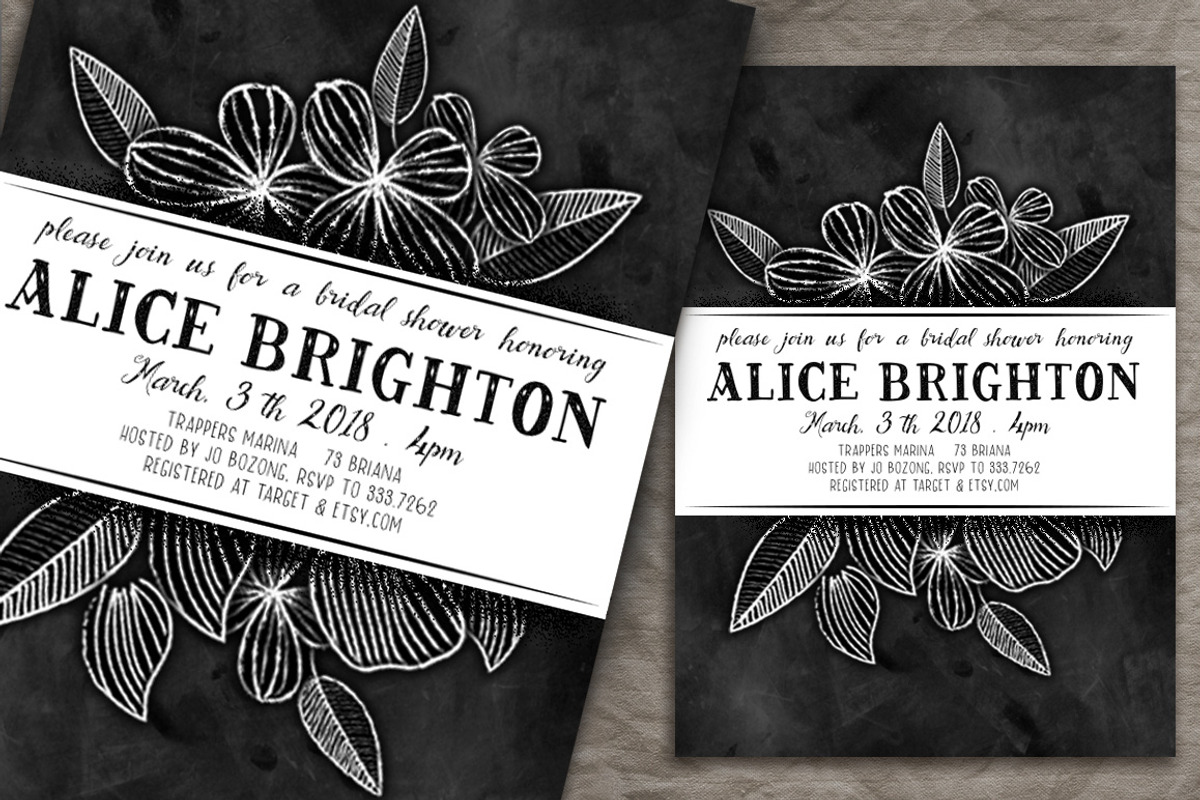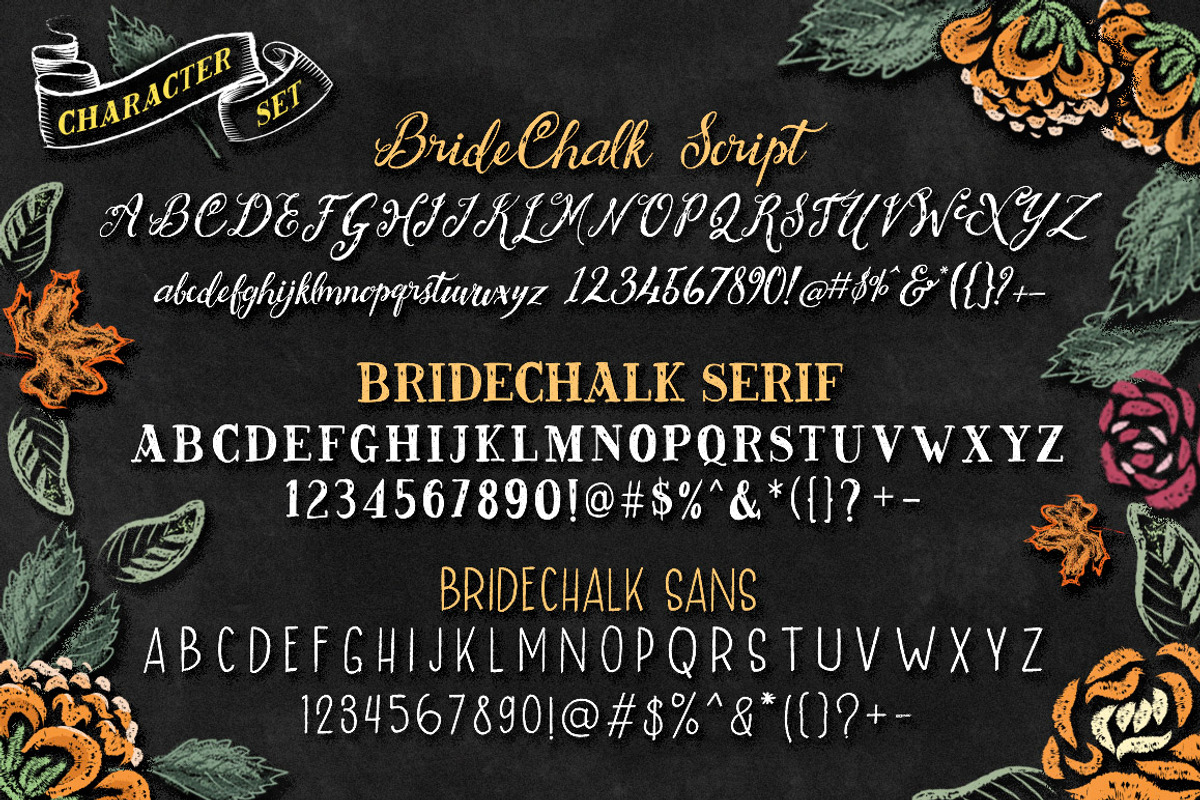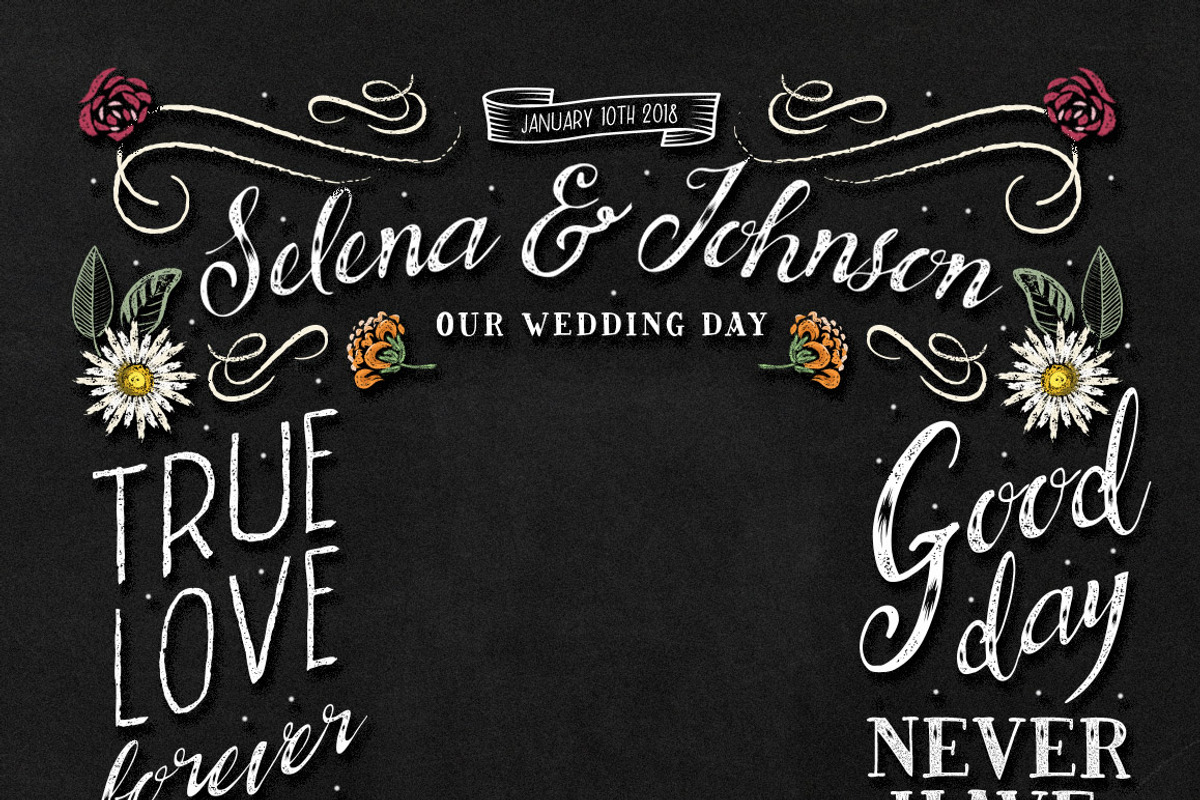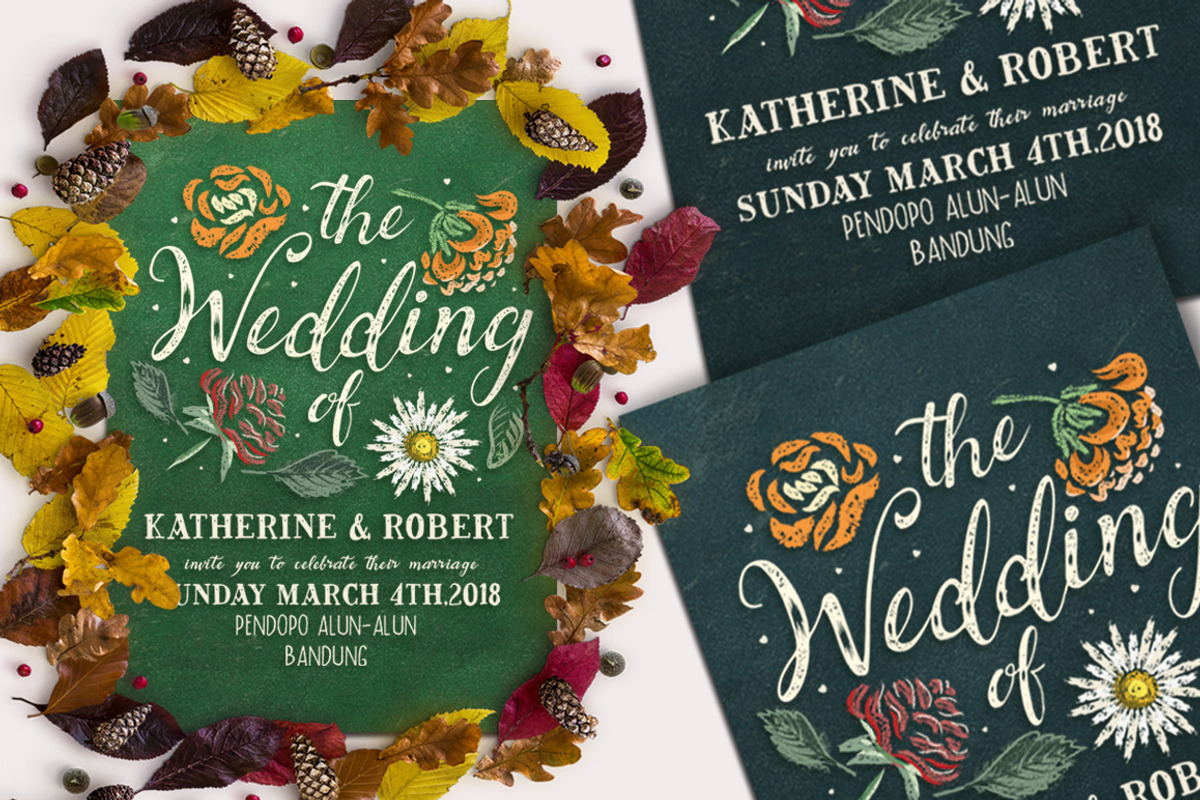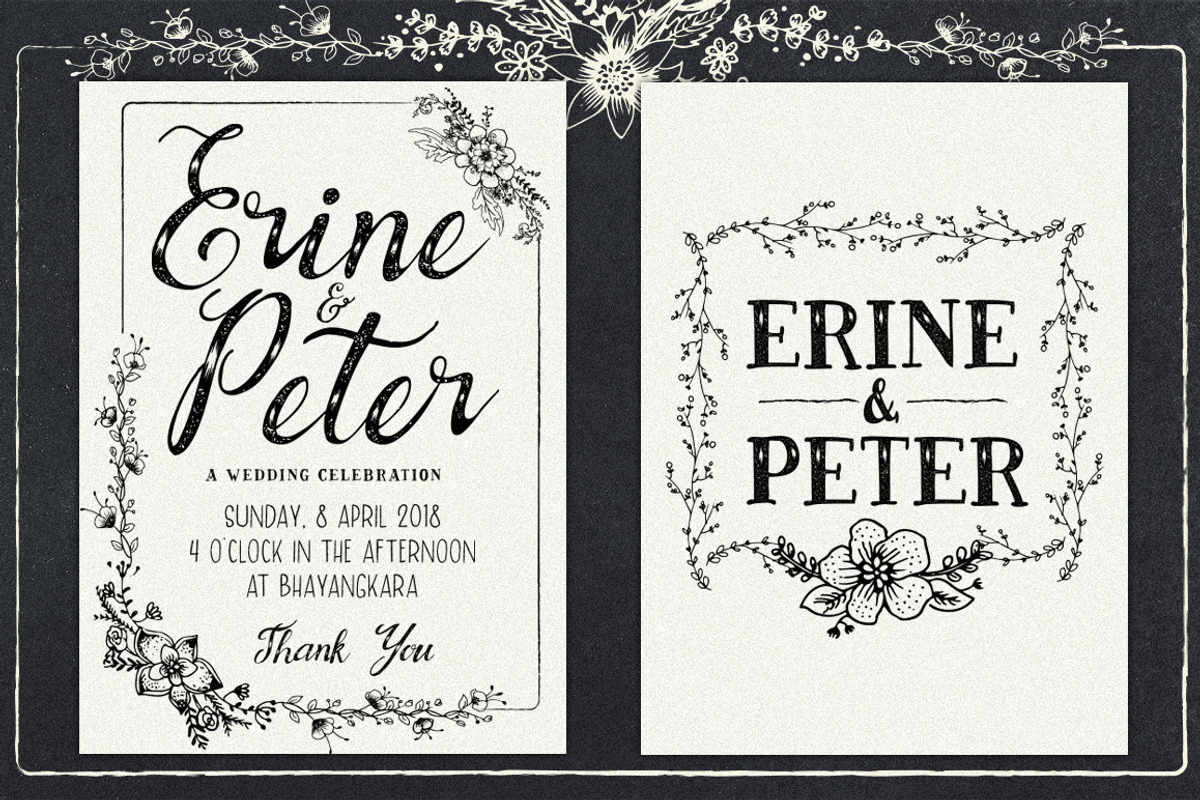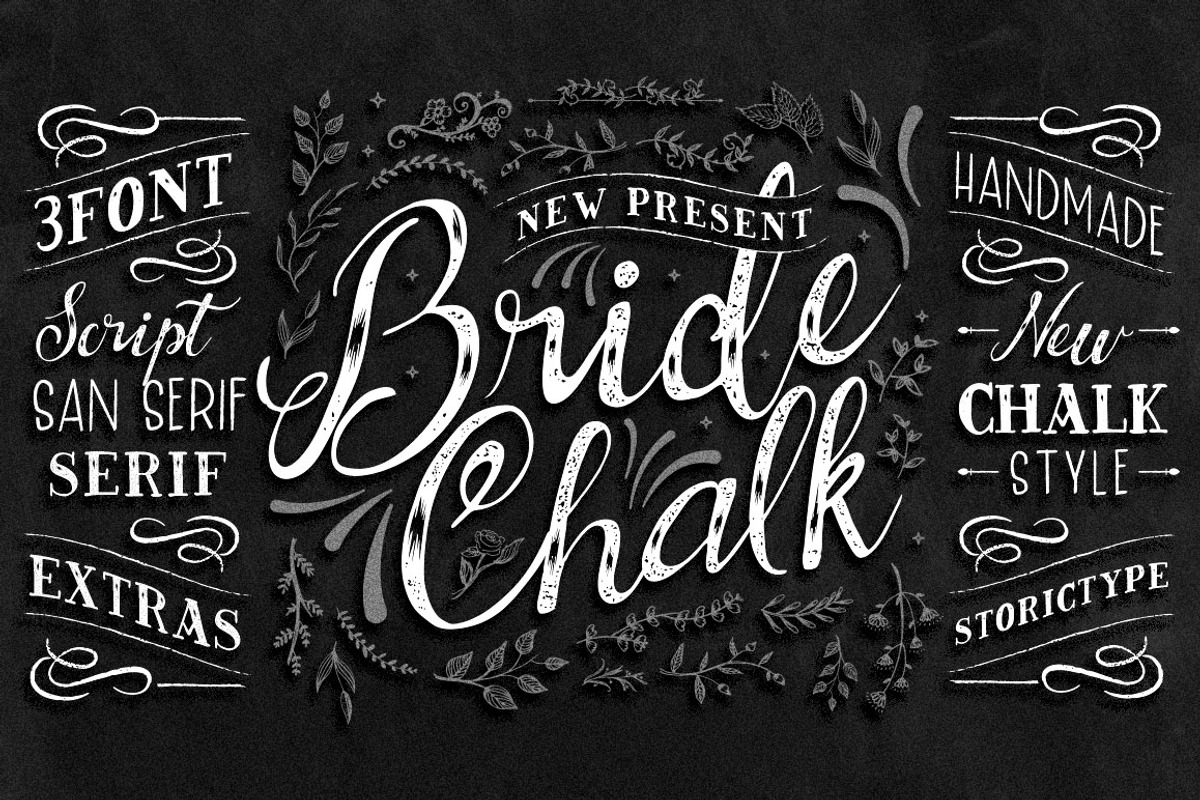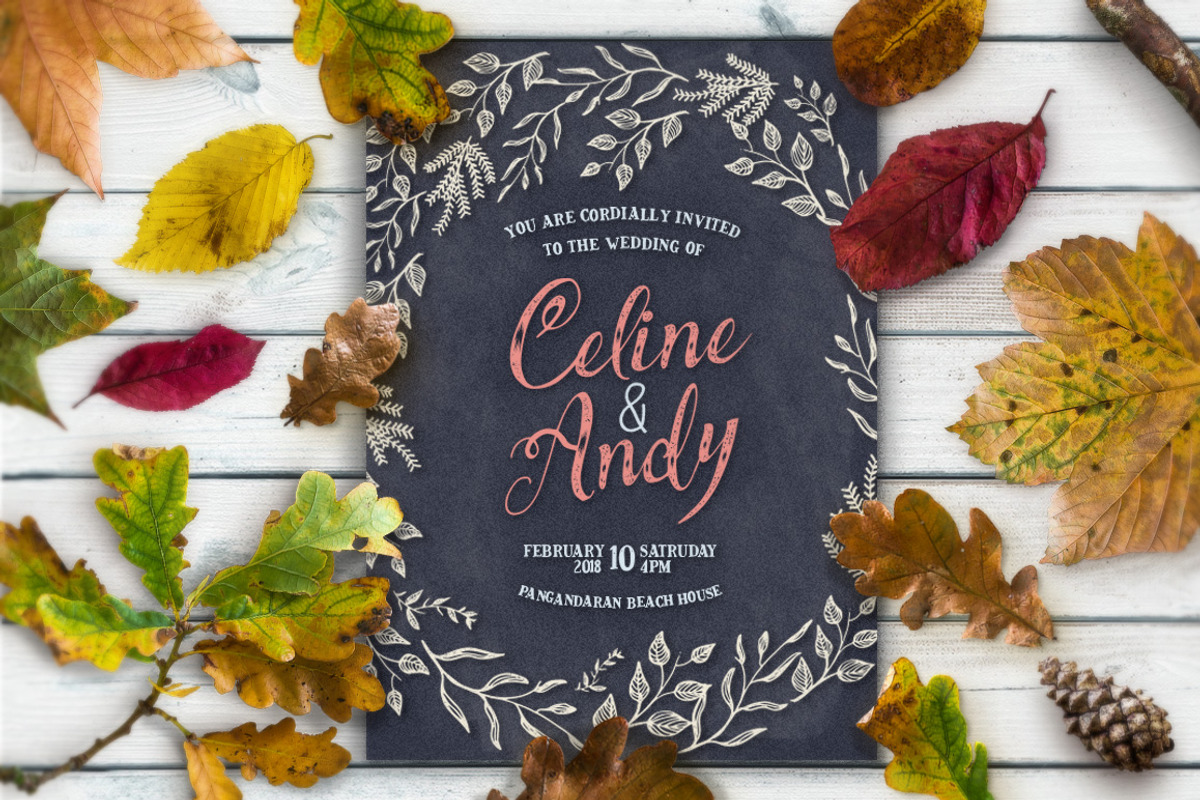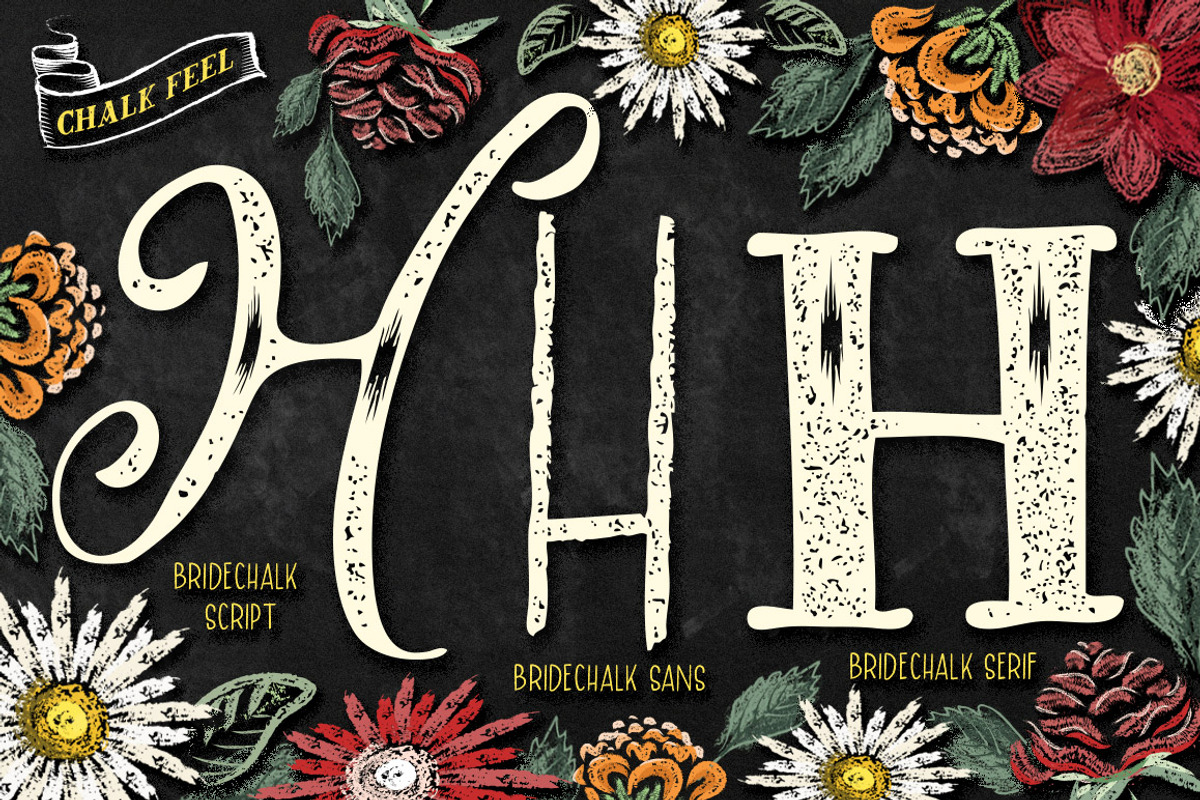
BrideChalk Typeface
Introducing BrideChalk Typeface
Here is new product, It's called BrideChalk. BrideChalk inspired by many lettering on backdrop chalk wedding and chalk wedding invitation, and it's specially designed for the wedding who use chalk concept,photobooth wedding, for lettering, logo, posters, etc. and also a touch of extras makes this font look stylist.